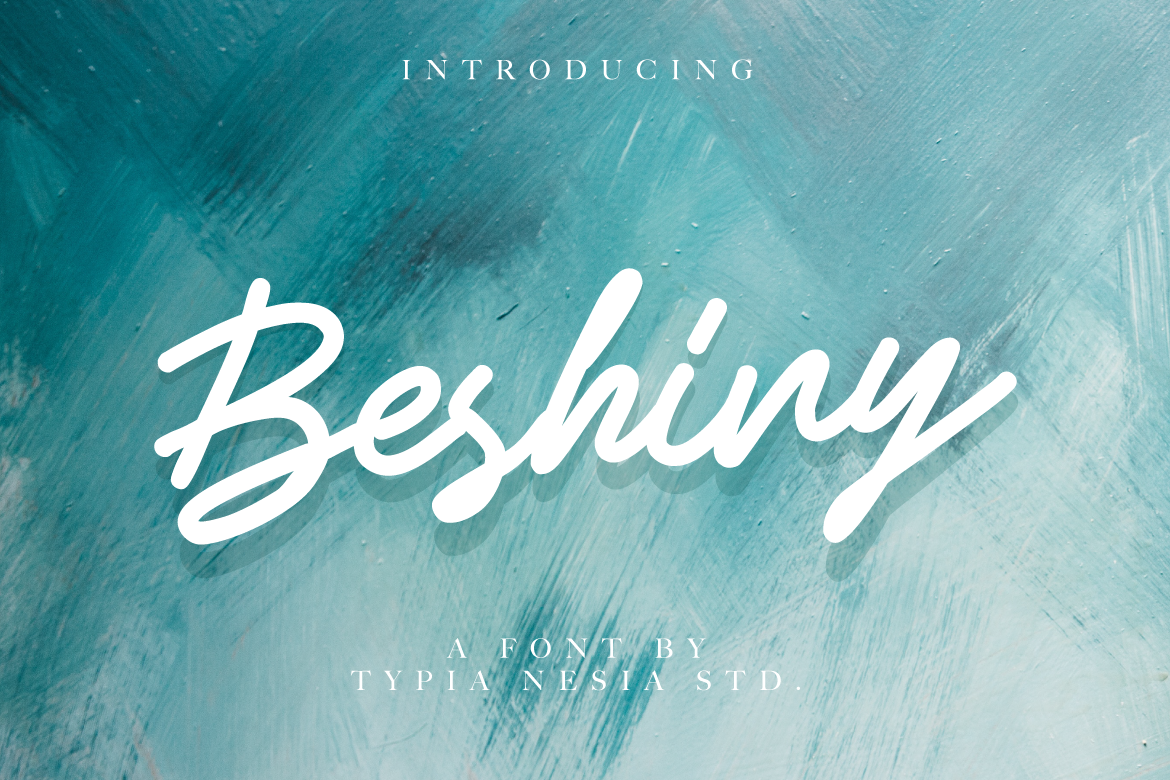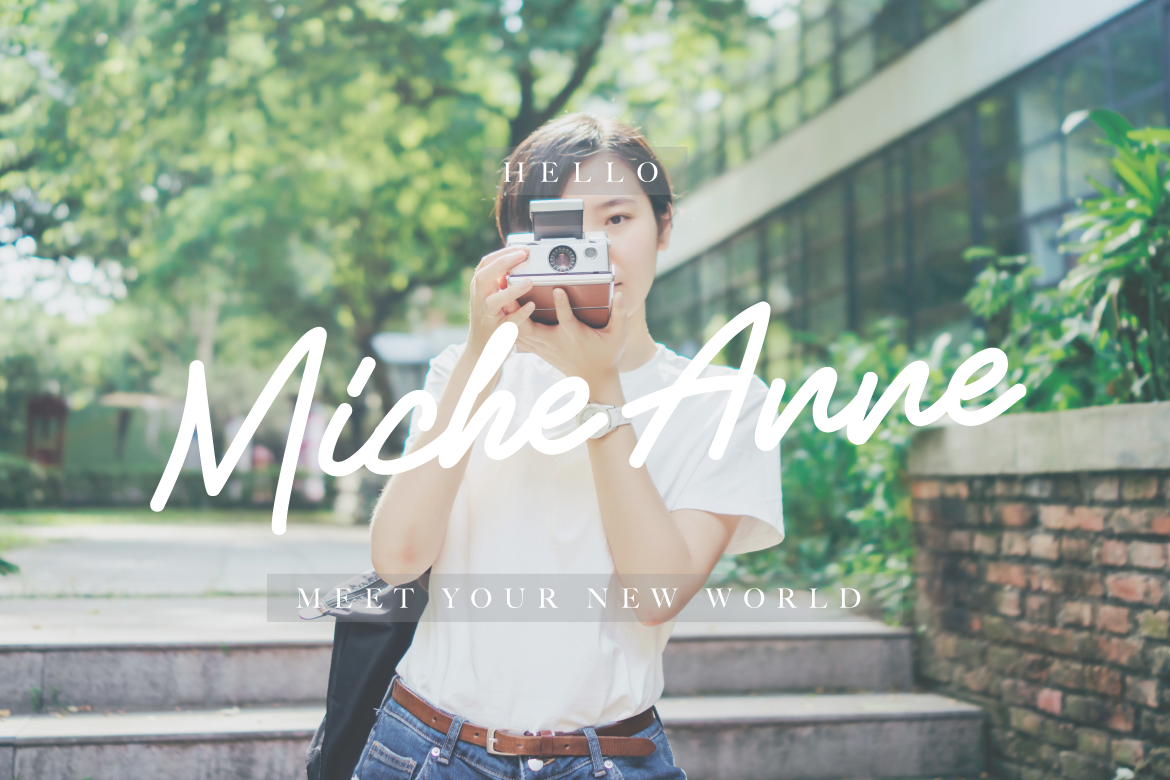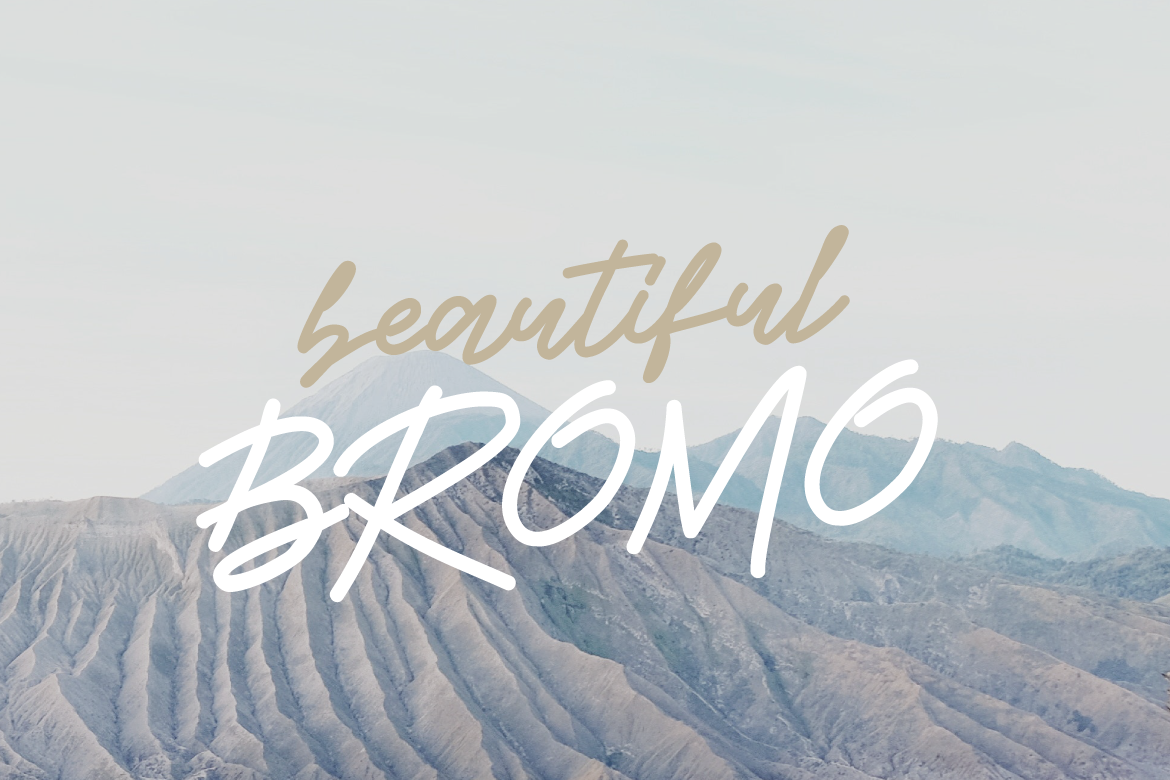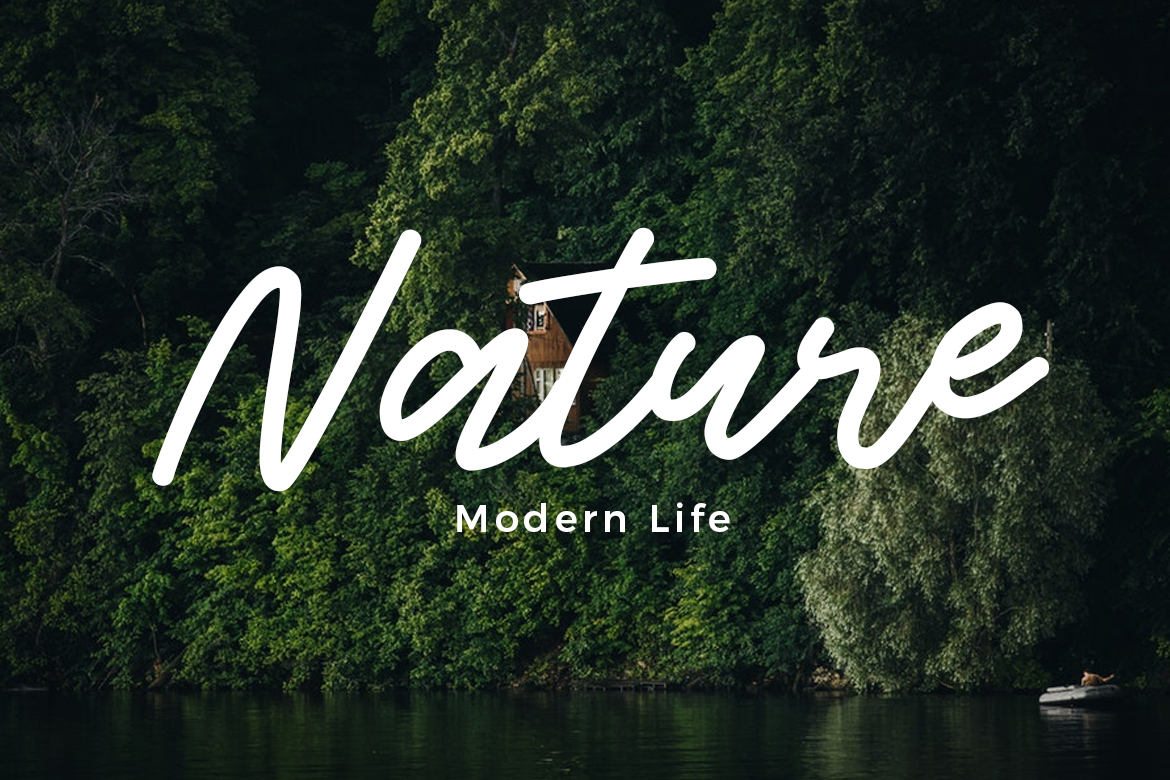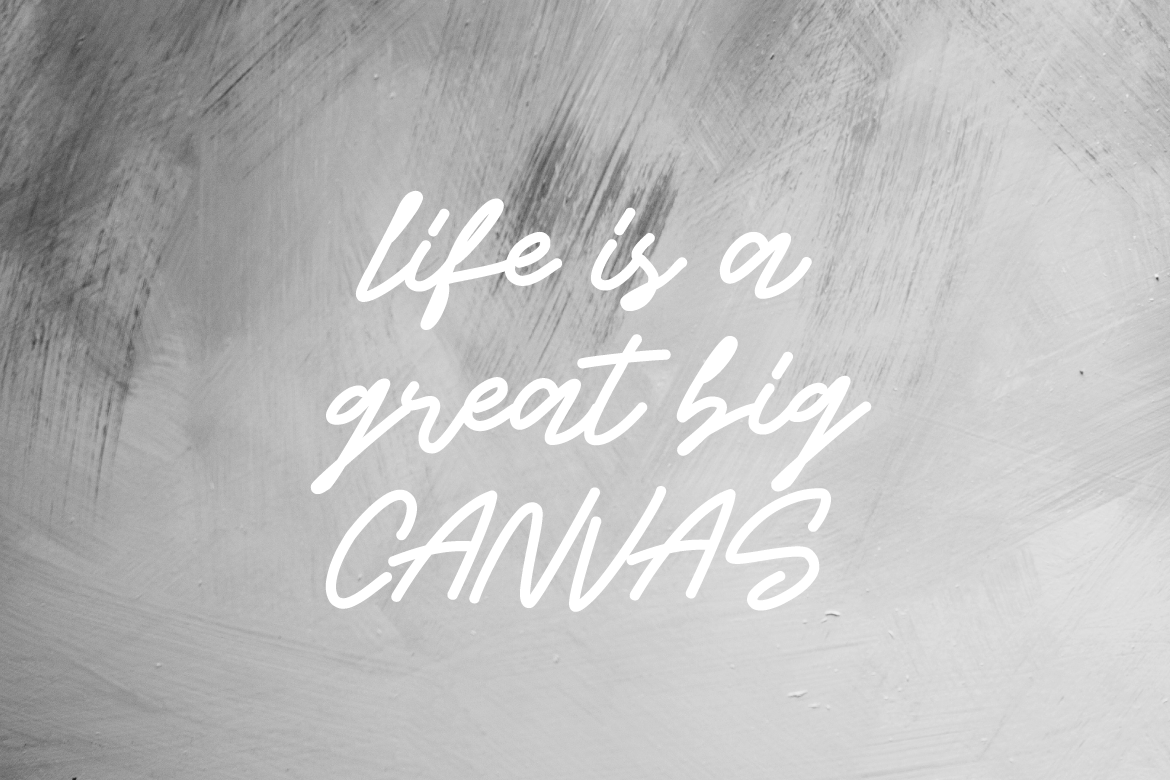
HomeScript FontsBeshiny Font Script Fonts Beshiny Font FacebookXPinterestWhatsApp Beshiny Font Poster 2 Beshiny Font Poster 3 Beshiny Font Poster 4 Beshiny Font Poster 5 Beshiny Font Poster 6 About Beshiny Font Beshiny is a handcrafted script font. It’s suitable for projects that need a personal touch. DOWNLOAD NOW People also explored Saturnus Font Mollaroid Font Lucky Gnome Font Blue Goblet Drawn American Football Font Monocracy Vintage Monograms C Font Handmade Vintage Font Foundation Font Anthony Louis Font 337 0 TagsBeshiny Font Previous articlePhelovetica FontNext articleMorning Simba Script Font LEAVE A REPLY Cancel reply Comment: Please enter your comment! Name:* Please enter your name here Email:* You have entered an incorrect email address! Please enter your email address here Website: Save my name, email, and website in this browser for the next time I comment. Personal Use Free Burnstown Dam Personal Use Free Read more about this font Dakwart Letter Personal Use Free Read more about this font Pompom Personal Use Free Read more about this font Crayones Personal Use Free Read more about this font BLOG Top 7 Google Fonts Alternatives for Faster and Privacy-Friendly Web Design (2025) Top 7 Google Fonts Alternatives for Faster and Privacy-Friendly Web Design (2025) When it comes to web typography, Google Fonts has long been the go-to... Transform Your Website: Elevate Your Typography with 7 Best Web Font Generators Best Fonts for T-Shirt Design – Top 2025 Picks Free Fonts Risk: Why Free Fonts Can Be Dangerous for Designers